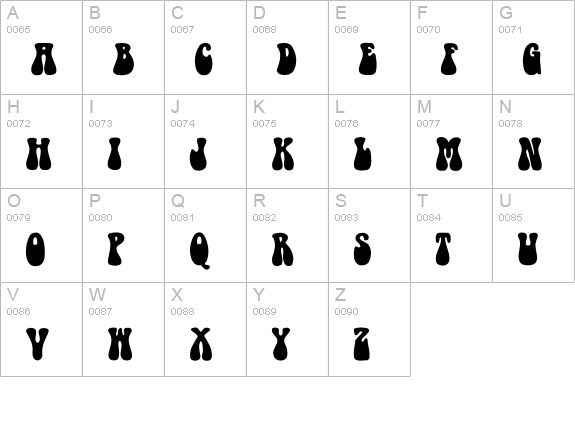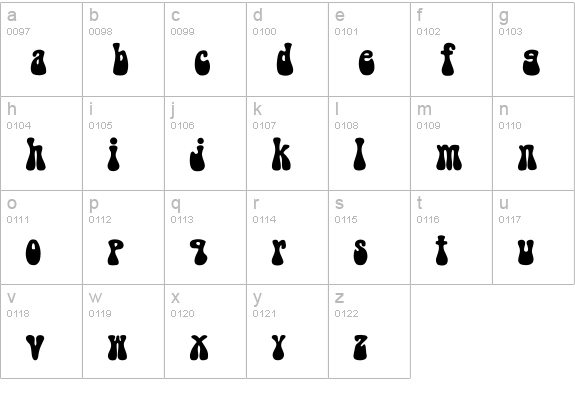
BellBottom-Normal Font Details
BellBottom-Normal is the standard, neutral variant in the BellBottom typeface family \xE2\x80\x94 well suited to general body text, paragraphs, and standard typographic work.
BellBottom-Normal is a stylish and retro font that brings a nostalgic vibe to any design project. This unique font features bold and eye-catching letterforms that make a statement. Whether you're designing posters, logos, or invitations, BellBottom-Normal is sure to stand out. The best part? BellBottom-Normal is completely free to download at FontsMarket.com. This means you can add this distinctive font to your collection without any cost. Don't miss out on the opportunity to enhance your designs with the charm of BellBottom-Normal. Download it today and let your creativity flow!